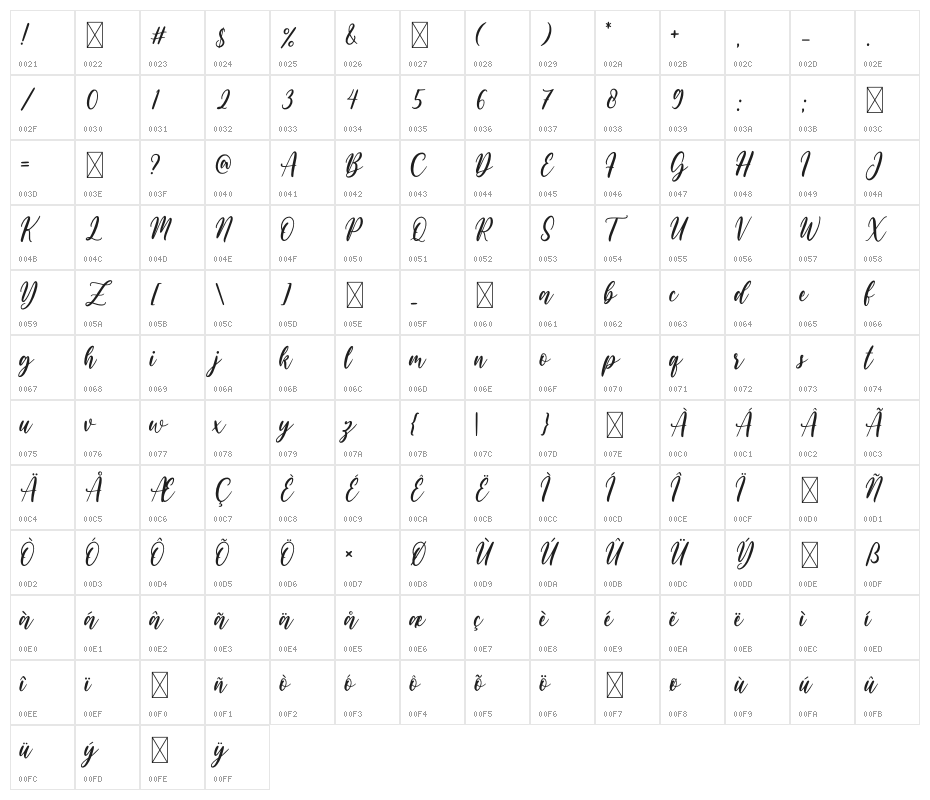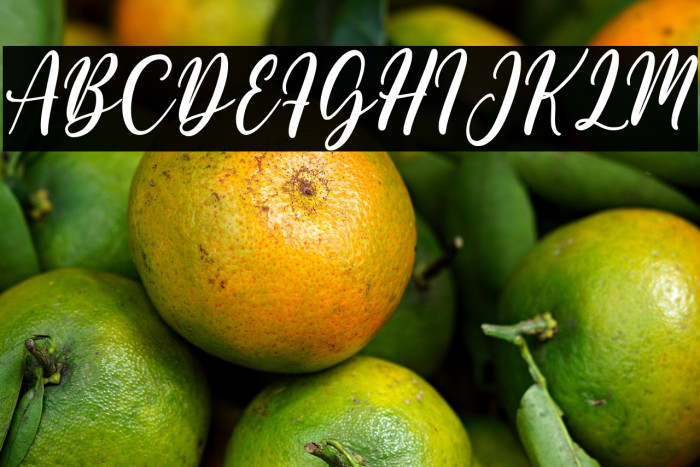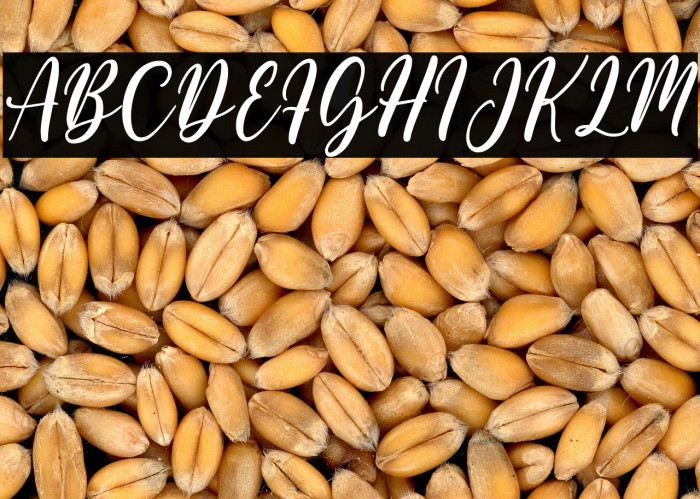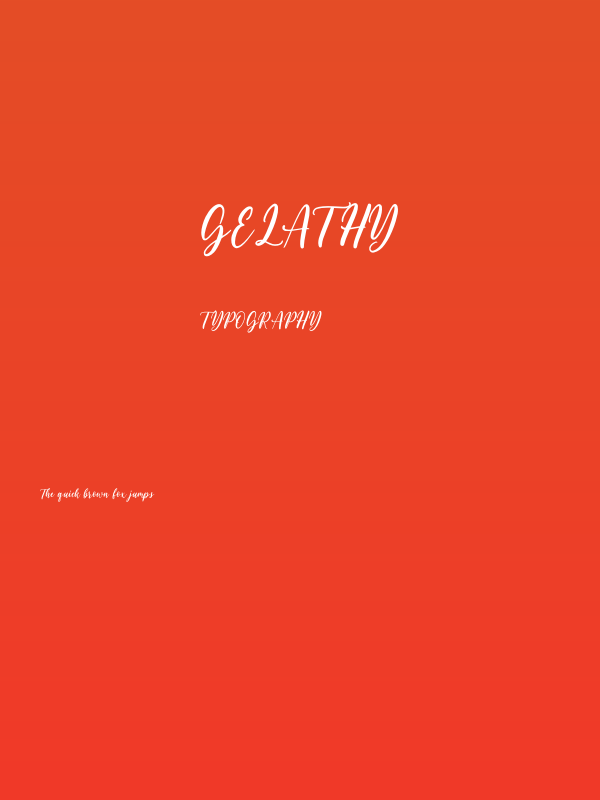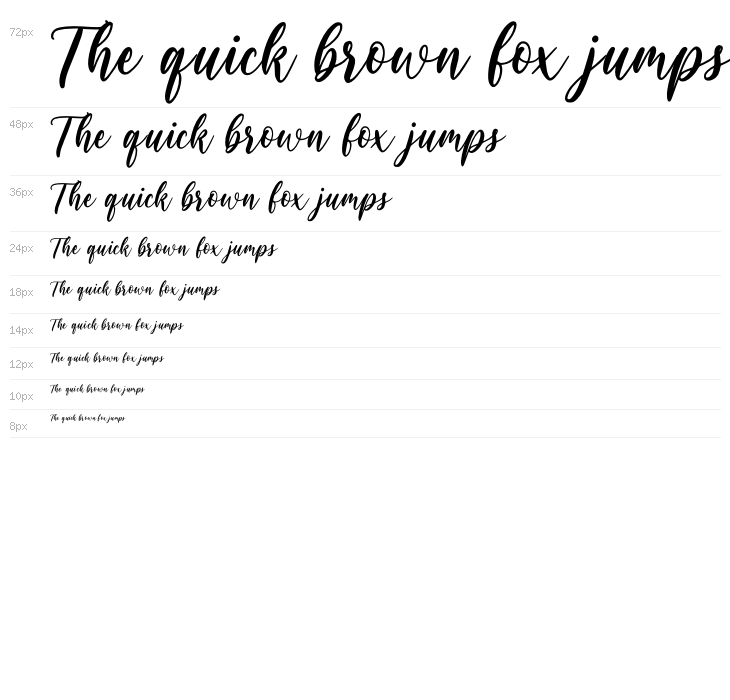
Gelathy Font
Gelathy Description
This elegant script font features fluid, cursive strokes that convey a sense of sophistication and grace. The uppercase letters are tall and slightly slanted, with smooth, flowing lines that connect seamlessly. The lowercase letters maintain a consistent style, with rounded forms and delicate loops that enhance readability. Numbers are clear and distinct, matching the overall aesthetic of the font. Special characters are thoughtfully designed to complement the script style, making this font versatile for various applications.
| Proposed Projects | Ideal for wedding invitations, elegant branding, greeting cards, and upscale packaging. |